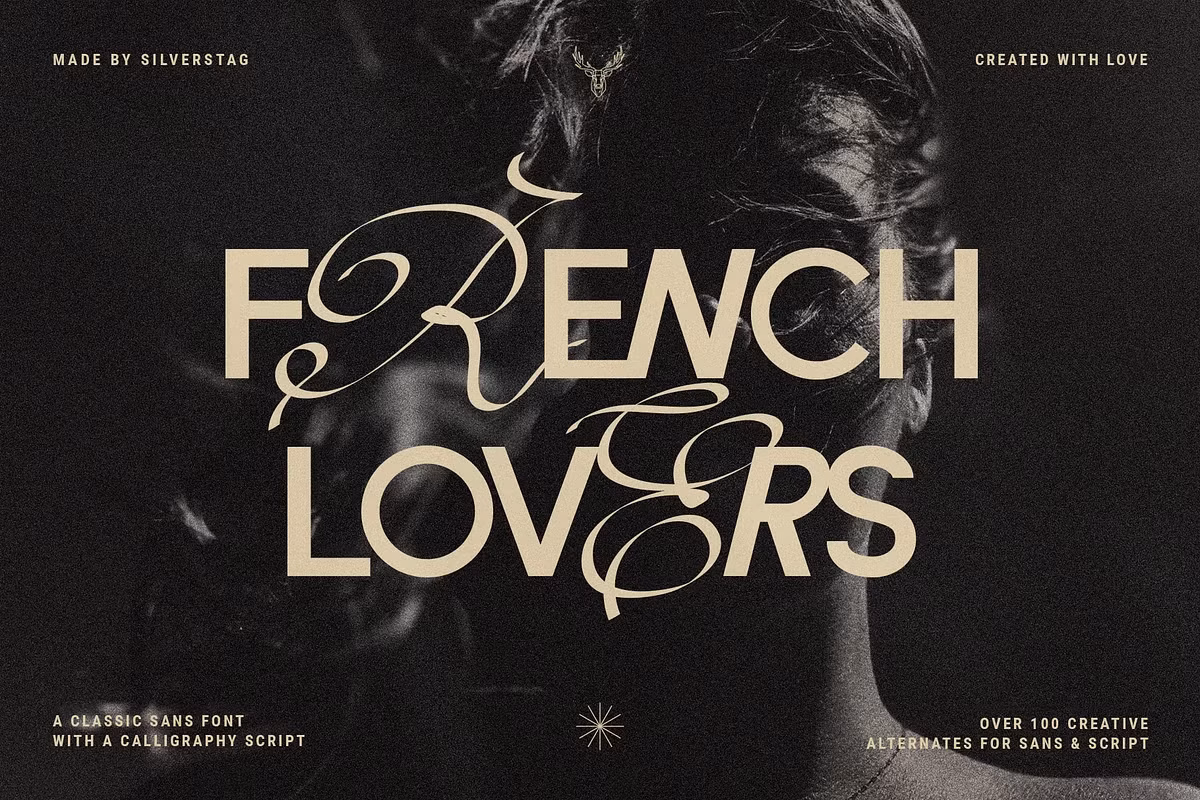
French Lovers – Sans & Script Duo Free Download is a romantic and stylish font pairing that blends a clean, modern sans serif with an elegant, flowing script. This duo is perfect for wedding invitations, fashion branding, beauty packaging, lifestyle blogs, and any project that needs a touch of charm and sophistication.
The sans serif offers sleek simplicity, while the script adds a handwritten, graceful touch—making French Lovers – Sans & Script Duo Free Download incredibly versatile for mixing and matching styles. With built-in ligatures and alternates, your designs will feel personal, polished, and full of love.